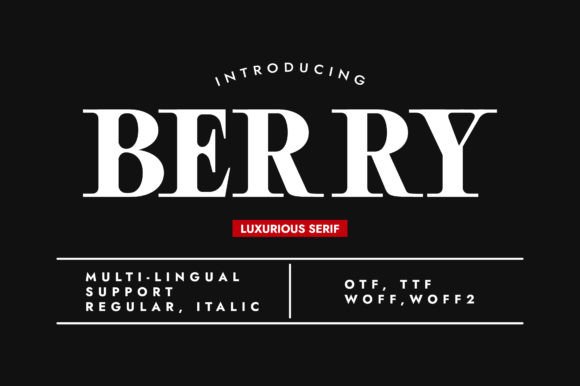
**Introducing Berry Font: Unleash the Allure of Timeless Elegance**
Embark on a typographic journey with Berry Font, a serif masterpiece meticulously crafted to evoke the essence of romance, beauty, and timeless grace. Its captivating contrast between sharp outer edges and smooth inner strokes breathes a captivating elegance into every letter, transforming your designs into works of art.
Indulge in the luxurious embrace of Berry Font's versatility, where it effortlessly elevates packaging designs, adds a touch of sophistication to jewelry pieces, and lends an air of allure to the creations of fashion houses. Its graceful curves and elegant lines dance effortlessly across romantic film titles, inviting viewers into a world of cinematic enchantment.
Immerse yourself in the world of luxury goods, where Berry Font adorns merchandise with an air of exclusivity and sophistication. Let your imagination soar as you envision the boundless possibilities of this exquisite typeface.
**Berry Font: Unparalleled Elegance for Your Design Masterpieces**
- **Romantic Rendezvous:** Berry Font's graceful curves and serifs evoke the tender emotions of a love story, making it the perfect choice for wedding invitations, love letters, and any design that seeks to capture the essence of romance.
- **Beacon of Beauty:** Each glyph is a work of art, carefully designed to exude an aura of beauty and refinement. Invite your audience on an aesthetic journey with Berry Font, where every word and letter becomes a visual masterpiece.
- **Elegance Unbound:** From fashion magazines to art prints, Berry Font adds a touch of sophistication to any design. Its versatility knows no bounds, allowing you to create stunning visuals that captivate and inspire.
- **Timeless Charm:** Berry Font transcends fleeting trends, embodying a timeless aesthetic that endures the test of time. Your designs will radiate an ageless elegance that continues to enchant for years to come.
- **Unleash Your Creativity:** Berry Font is more than just a font; it's a gateway to unlocking your creative potential. Let its graceful lines guide your imagination and create designs that leave an unforgettable impression.
**Embrace Berry Font, the epitome of elegance and creativity, and let your designs blossom with a timeless allure.**